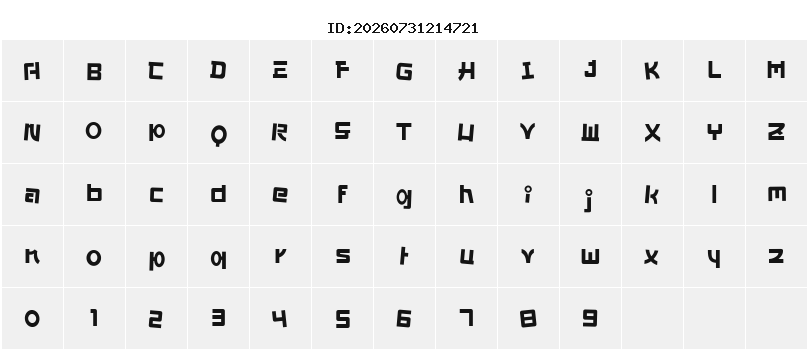
• Font Name: Layiji SaRangHeYo
• Designer: Layiji
• Manufacturer: Numchoke Sinmongkolraksa
Layiji SaRangHeYo.ttf is a modern, elegant sans-serif font designed for ultimate readability and visual harmony. Perfect for branding, headlines, web design, and print materials.